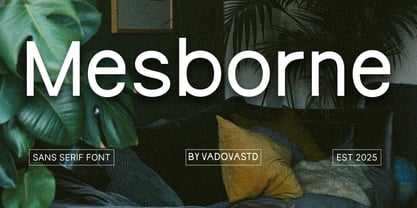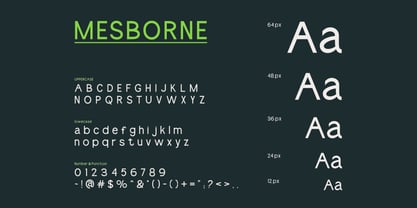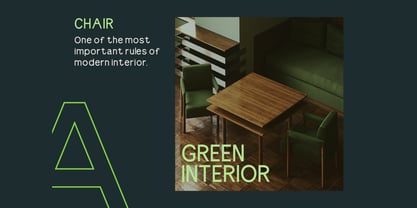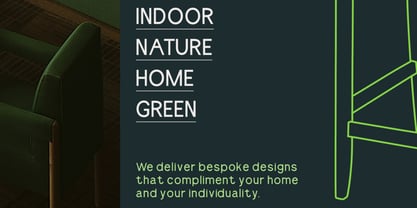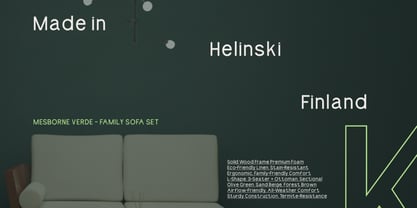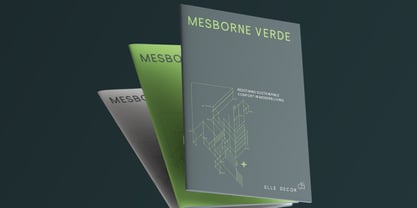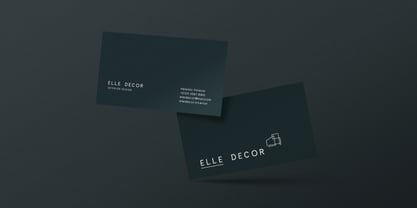
Mesborne
Mesborne presents a clean and contemporary sans serif typeface with balanced proportions and smooth geometric forms. The font includes uppercase, lowercase, numerals, and punctuation, delivering a complete character set for versatile design needs. Its minimalist structure and consistent stroke weight create a refined visual rhythm suitable for both digital and print layouts. Relevance and Use Cases is perfect for corporate branding, business presentations, UI/UX design systems, website layouts, editorial design, modern advertising materials, startup branding, digital products, portfolio presentations, and clean minimalist visual identities.